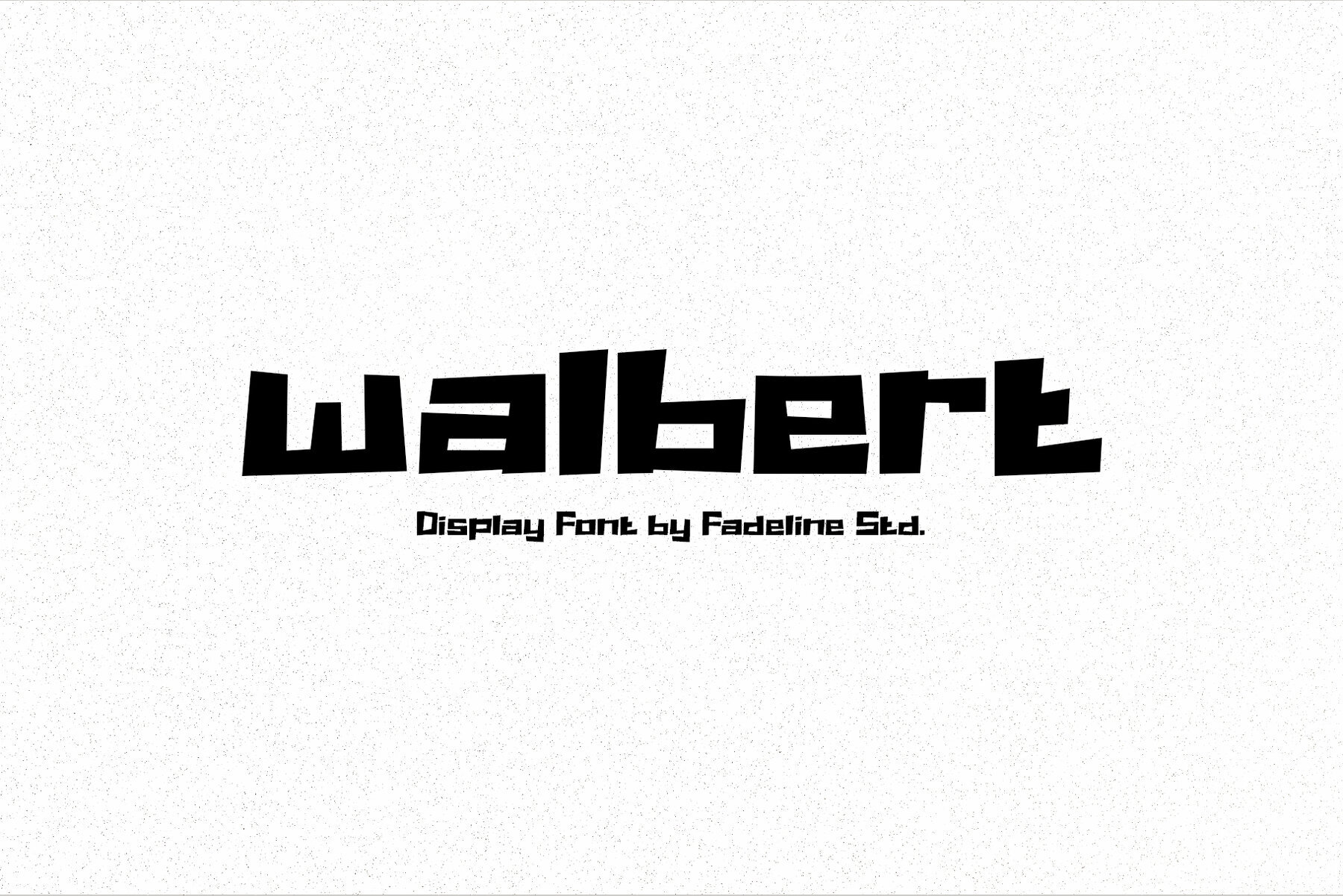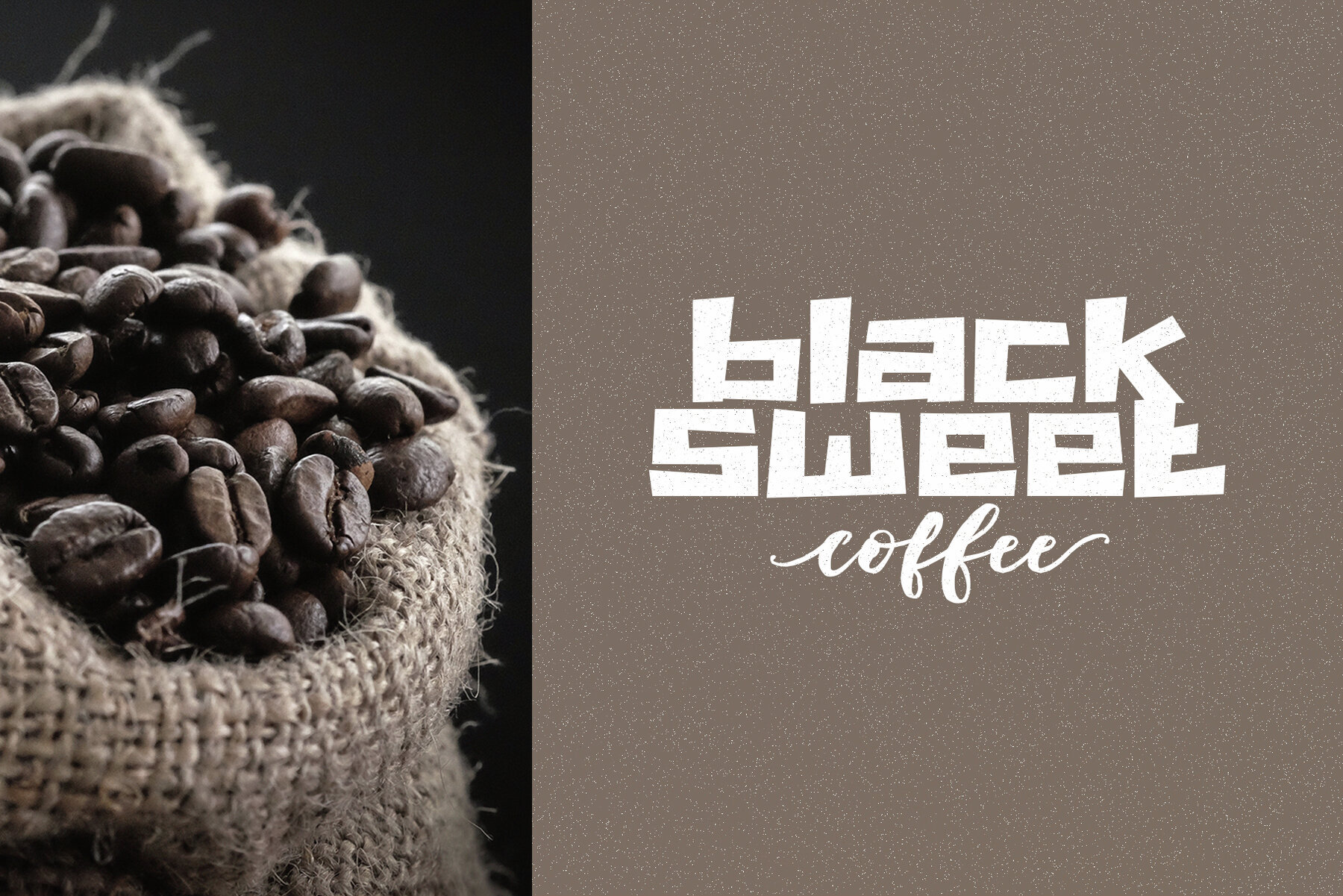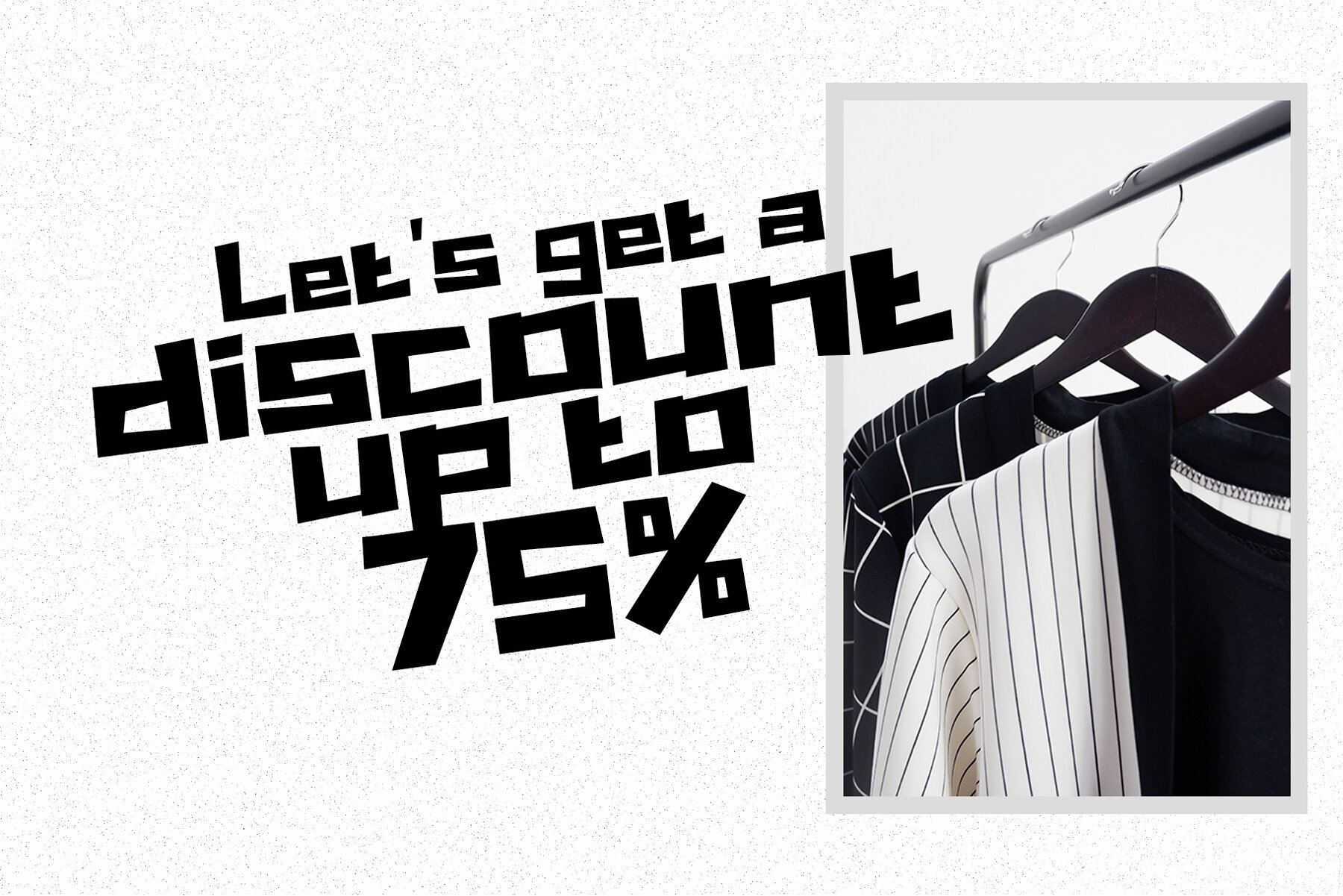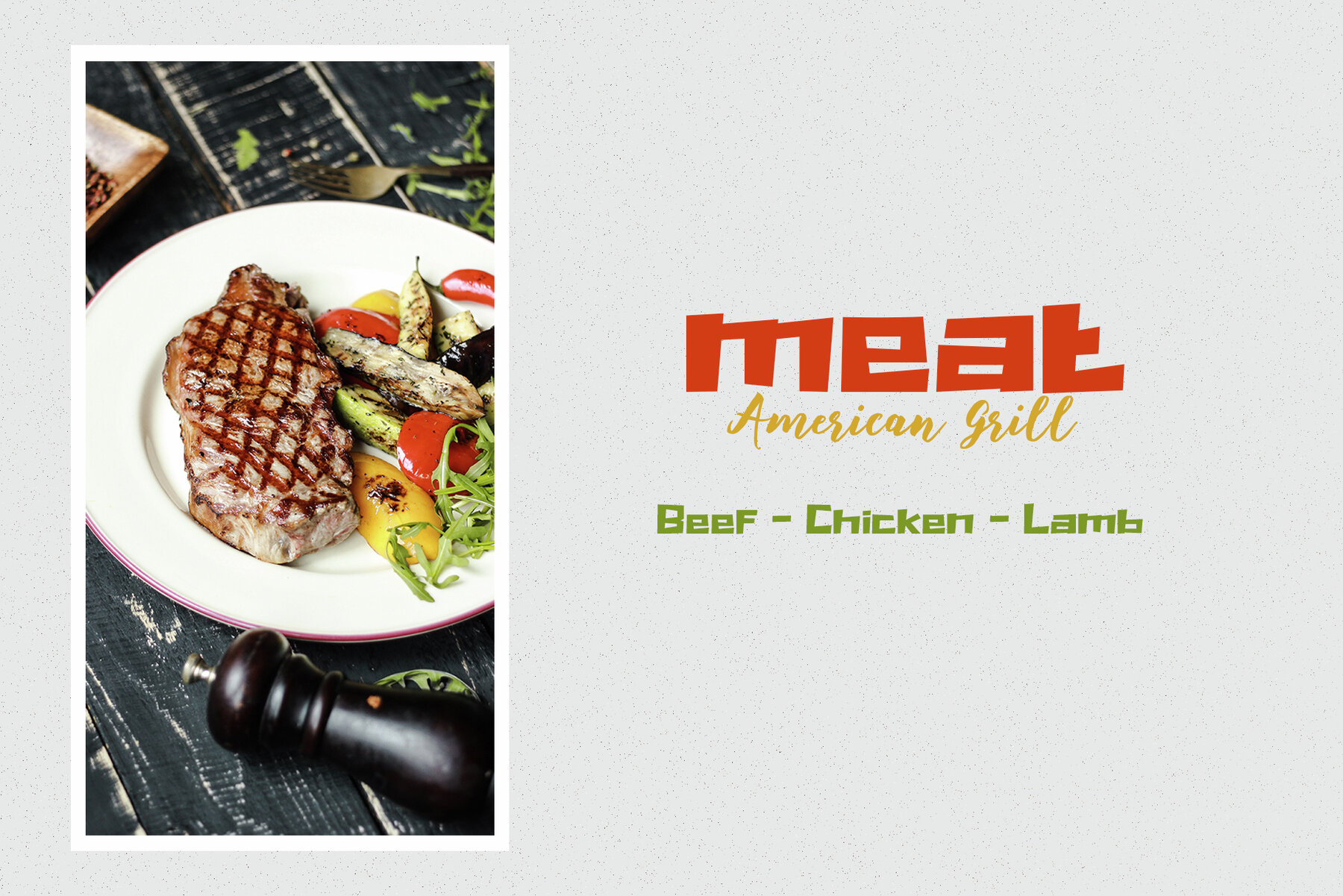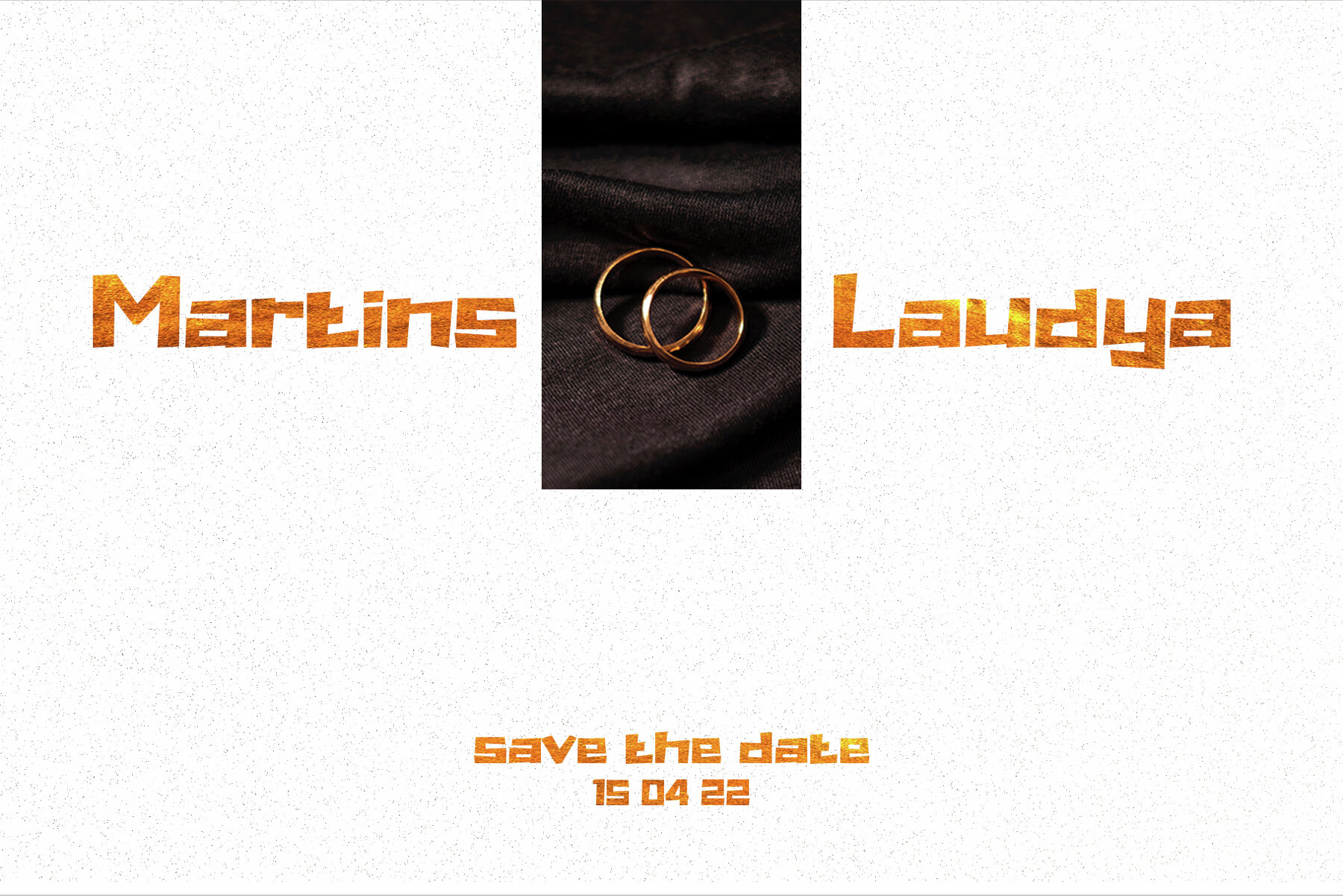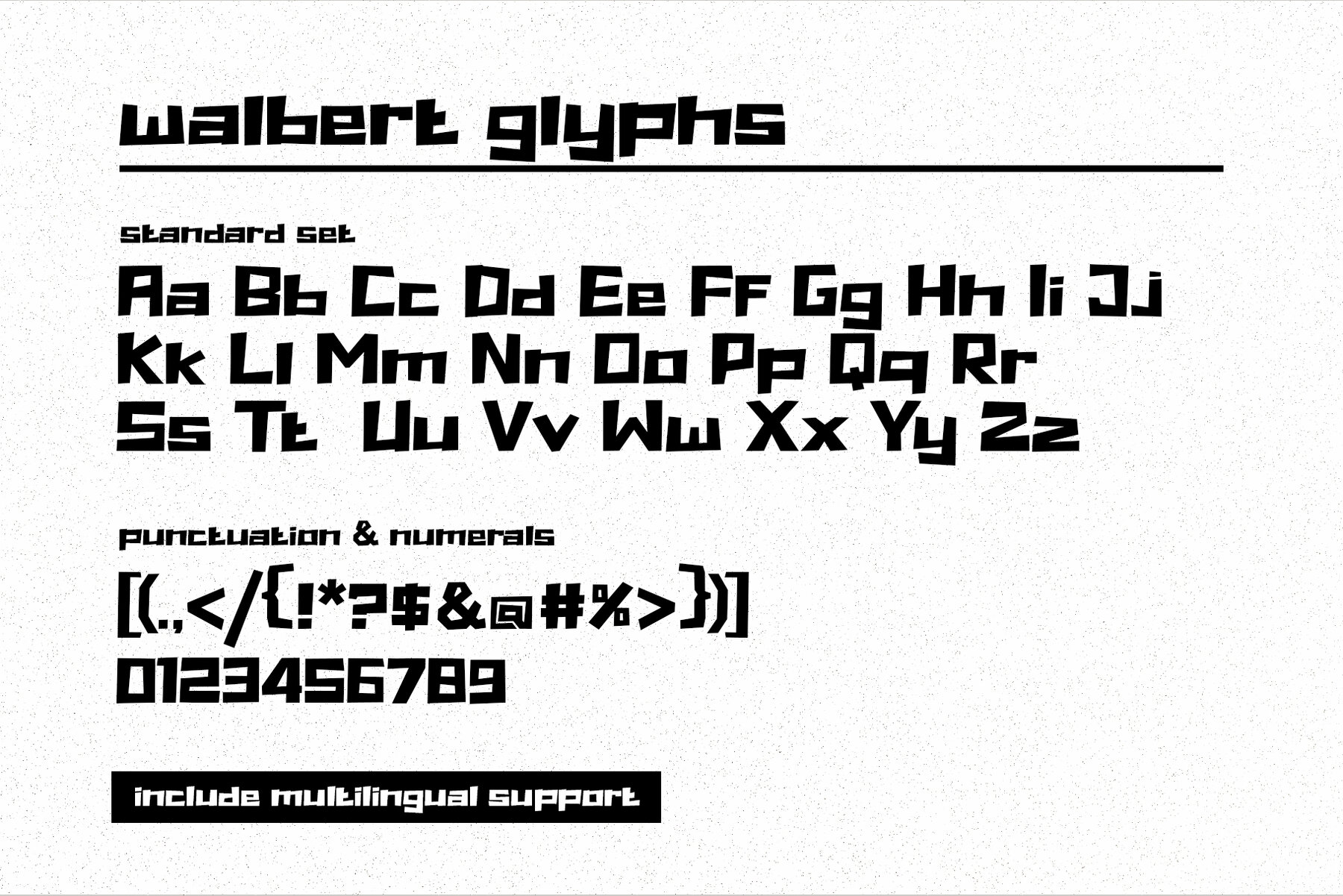
Walbert Font
Walbert
Unleash your creativity with Walbert, a new display font by FadeLine Studio. Its bold, blocky appearance commands attention and ensures your projects stand out. Walbert is perfect for designers seeking to infuse their work with a sense of strength and bravery. Whether you're working on comics, branding initiatives, or stylish homeware designs, Walbert delivers the impact you need.Introducing Walbert Display Font
Diverse Applications